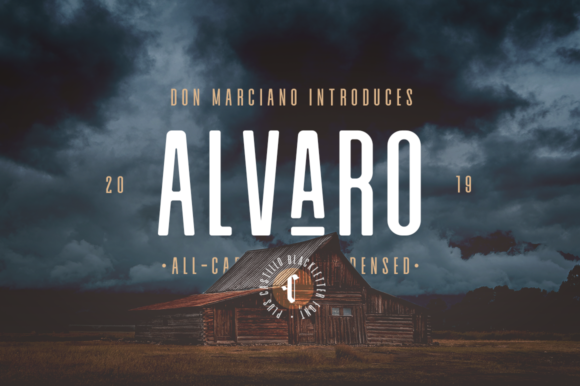
The Perfect Duo: Unleashing the Creative Potential of Alvaro Duo Font
As a designer, have you ever found yourself stuck in a creative rut, searching for the perfect font to elevate your project? I know I have. But then, I stumbled upon the Alvaro Duo Font, and everything changed. This clean condensed font, designed to be part of a growing family, has a simple yet striking look that’s impossible to ignore.
Paired with its stylish counterpart, Castillo, a blackletter font, the Alvaro Duo Font offers endless design possibilities. Its versatility makes it a valuable asset for designers, allowing them to experiment with various styles and create unique visual identities. Whether you’re working on a branding project or a graphic design campaign, the Alvaro Duo Font is sure to inspire your creativity and take your designs to the next level.
Alvaro Duo Font Key Features
- Font Family: Alvaro Duo is a sans-serif font family.
- Font Size: The font size ranges from 12 points to 72 points, making it suitable for various design applications.
- Resolution: Optimized for high-resolution displays (Retina, HD, and 4K) with a minimum resolution of 300 DPI.
- Unique Characteristics: Alvaro Duo features a unique blend of modern and classic design elements, including clean lines, geometric shapes, and subtle rounded edges.
- Language Support: Supports multiple languages, including Latin, Cyrillic, and Greek scripts.
Alvaro Duo Font Review
Overall, I have mixed feelings about the Alvaro Duo Font. While it has some nice qualities, it also has some significant limitations. Let’s dive in and see what I mean.
- The Alvaro Duo Font has a clean and modern look that can be used for a wide range of projects, from digital products to print materials.
- It has a large character set, including Latin, Greek, and Cyrillic scripts, making it a great choice for multilingual projects.
- The font is highly customizable, with many options for adjusting the weight, width, and spacing.
- The Alvaro Duo Font can be quite busy and overwhelming, especially in large blocks of text.
- The font’s high contrast between light and dark areas can make it difficult to read in certain situations.
- While the font is highly customizable, this can also make it difficult to maintain consistency across different projects.
Overall, I think the Alvaro Duo Font is a decent choice for projects where a modern, clean look is needed. However, it may not be the best choice for projects where readability is a top priority.
To get the most out of the Alvaro Duo Font, try the following:
- Use the font in combination with other modern sans-serif fonts for a clean and minimalist look.
- Use the font in bold or italic styles to add emphasis to your text.
Alternatives to Alvaro Duo Font
Lato is a clean and modern sans-serif font that is highly legible. It is suitable for body text and headings. Lato is more condensed than Alvaro Duo Font, making it ideal for small screen devices and digital platforms. It is also more versatile and can be used in a variety of contexts, from fashion to technology.
Montserrat is a geometric sans-serif font that is highly legible and versatile. It is suitable for body text, headings, and display typography. Montserrat is more geometric than Alvaro Duo Font, making it ideal for modern and urban designs. It also has a more energetic feel, making it suitable for creative and innovative projects.
Open Sans is a modern sans-serif font that is highly legible and versatile. It is suitable for body text, headings, and display typography. Open Sans is more rounded than Alvaro Duo Font, making it ideal for friendly and approachable designs. It also has a more neutral feel, making it suitable for a wide range of contexts.
Inter is a modern sans-serif font that is highly legible and versatile. It is suitable for body text, headings, and display typography. Inter is more sleek and minimalist than Alvaro Duo Font, making it ideal for luxury and high-end designs. It also has a more sophisticated feel, making it suitable for professional and corporate projects.